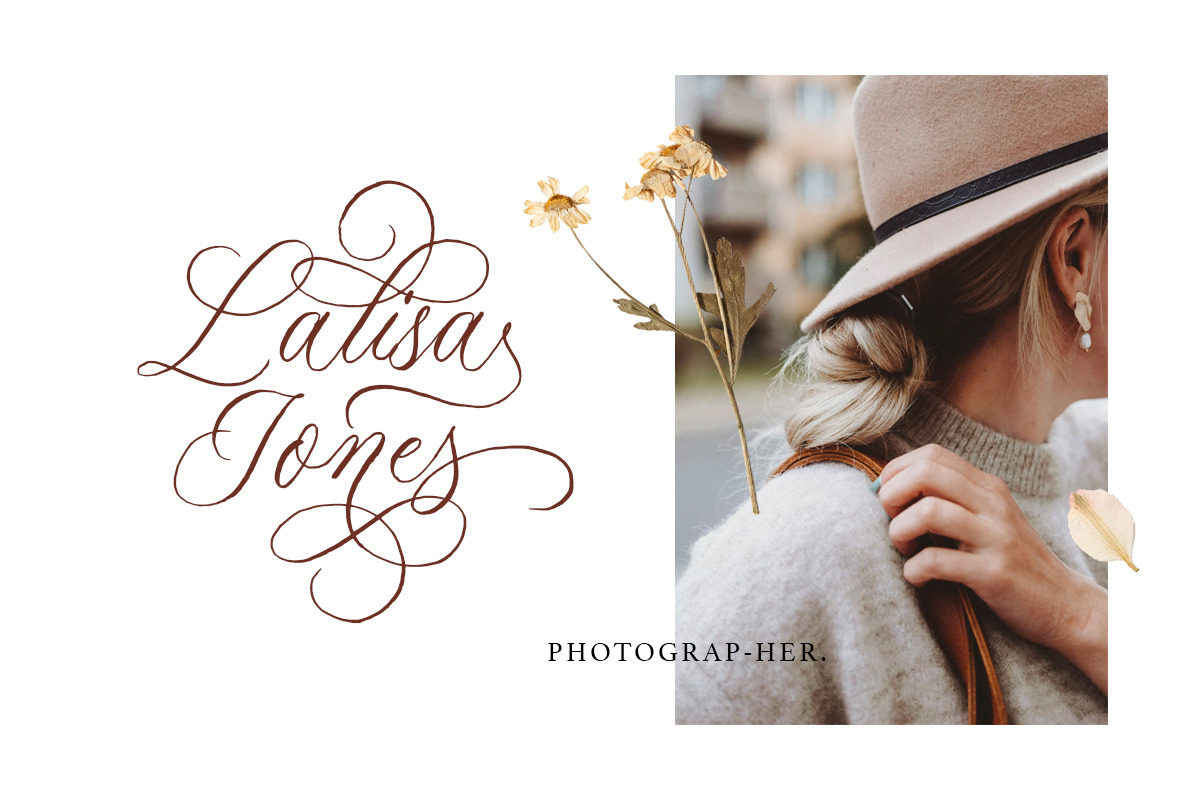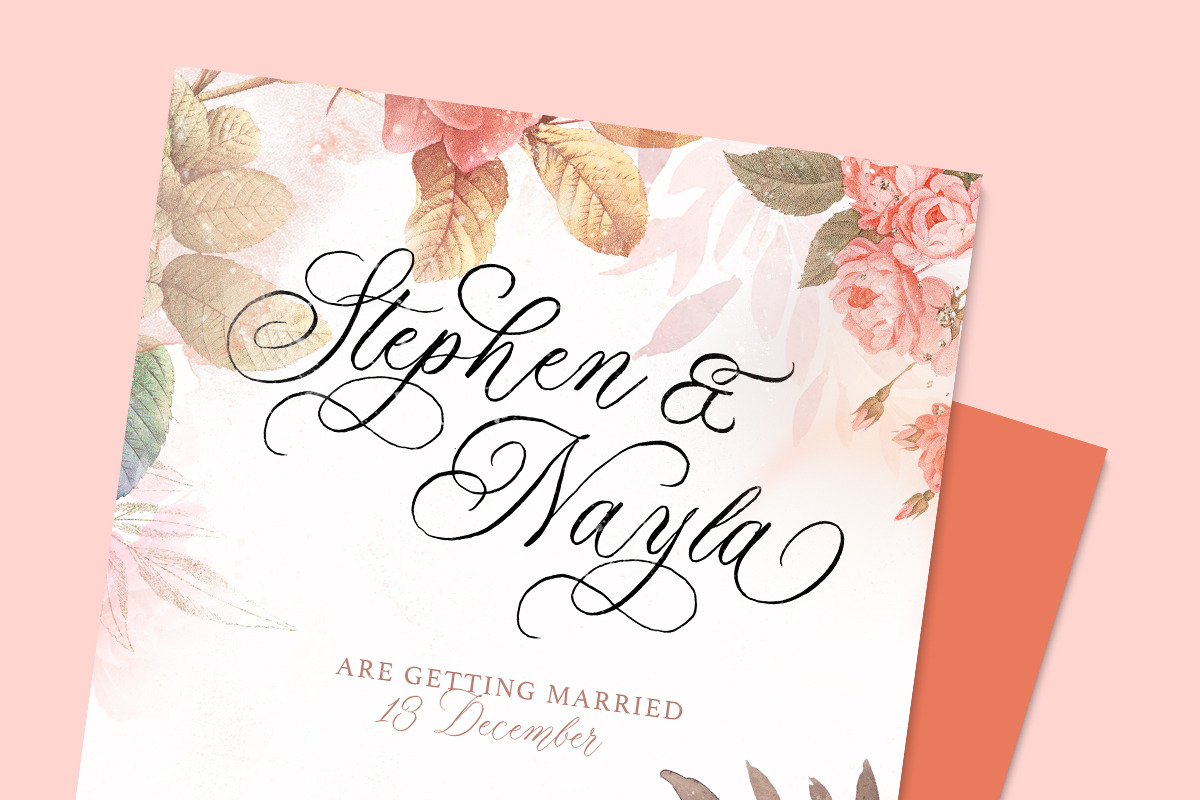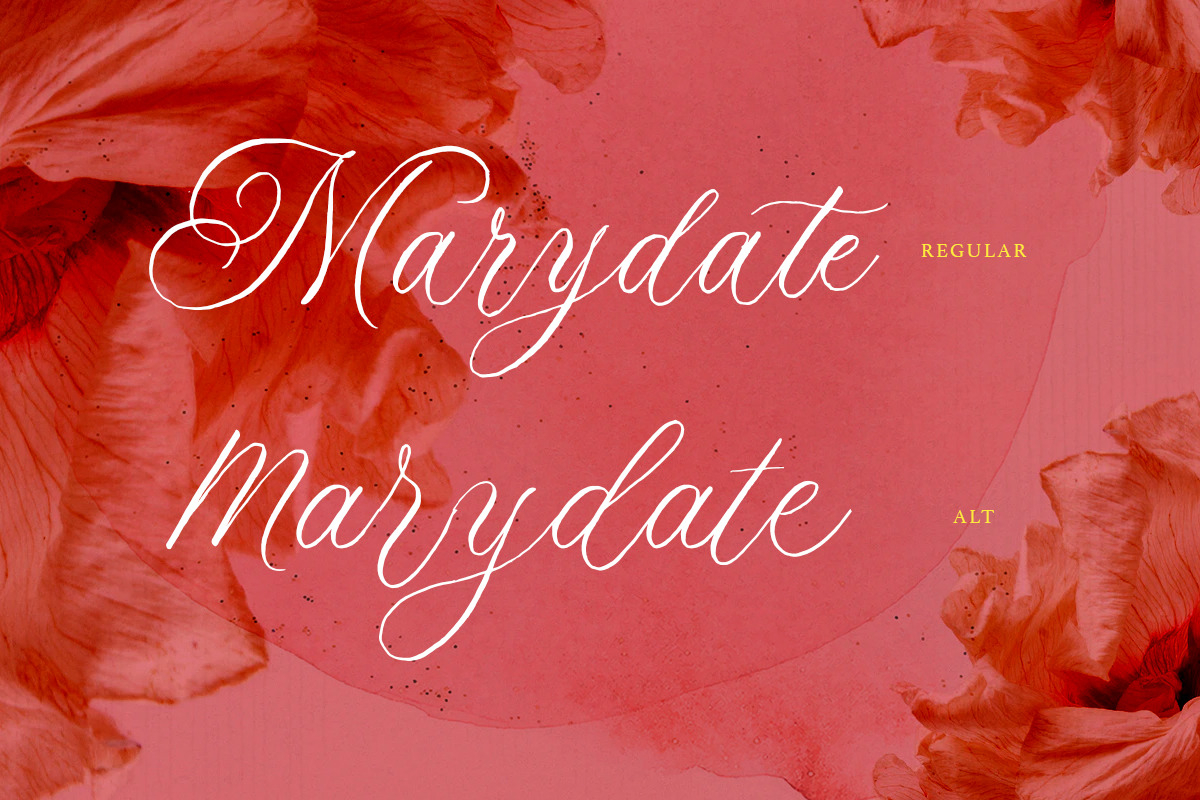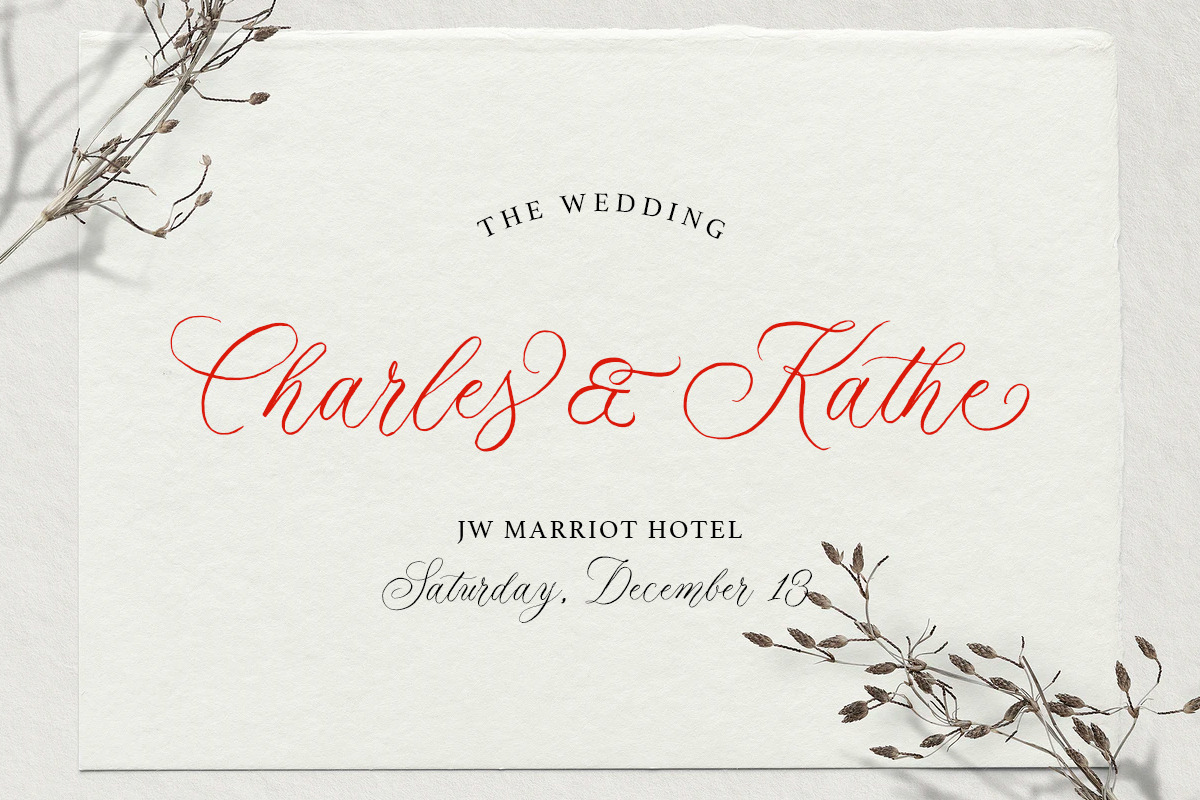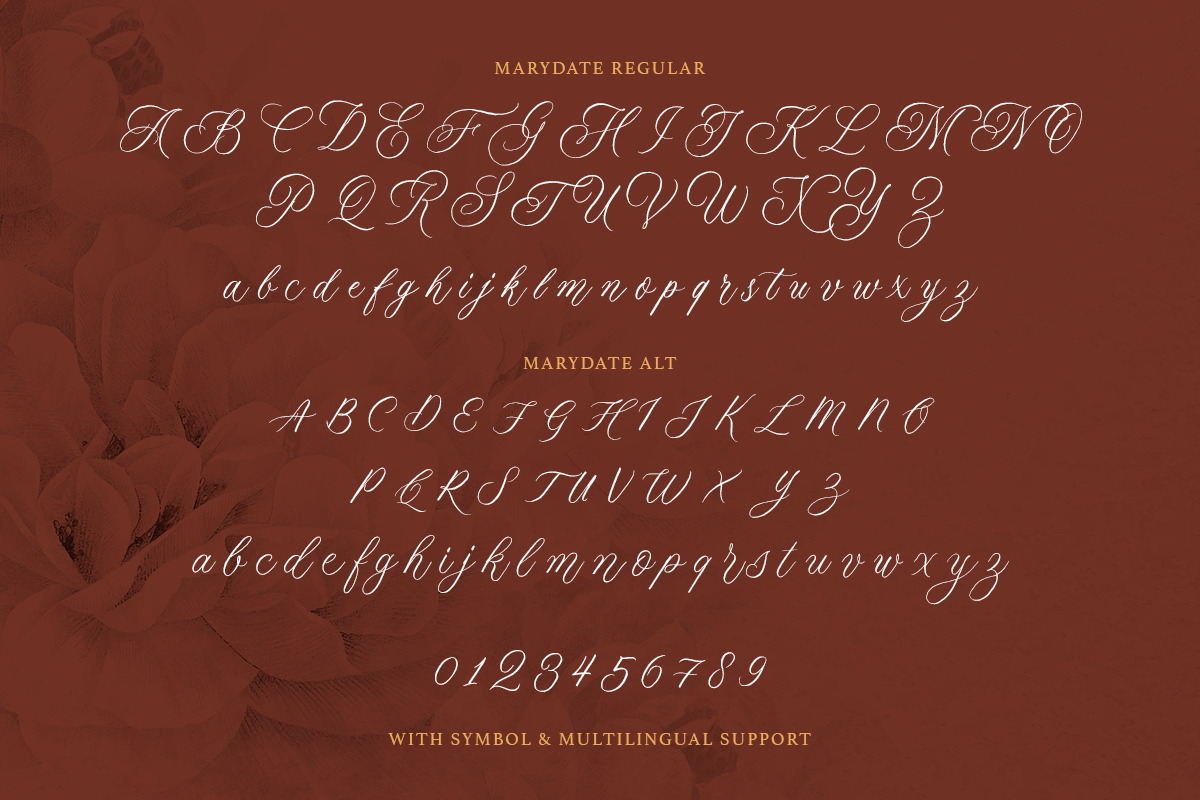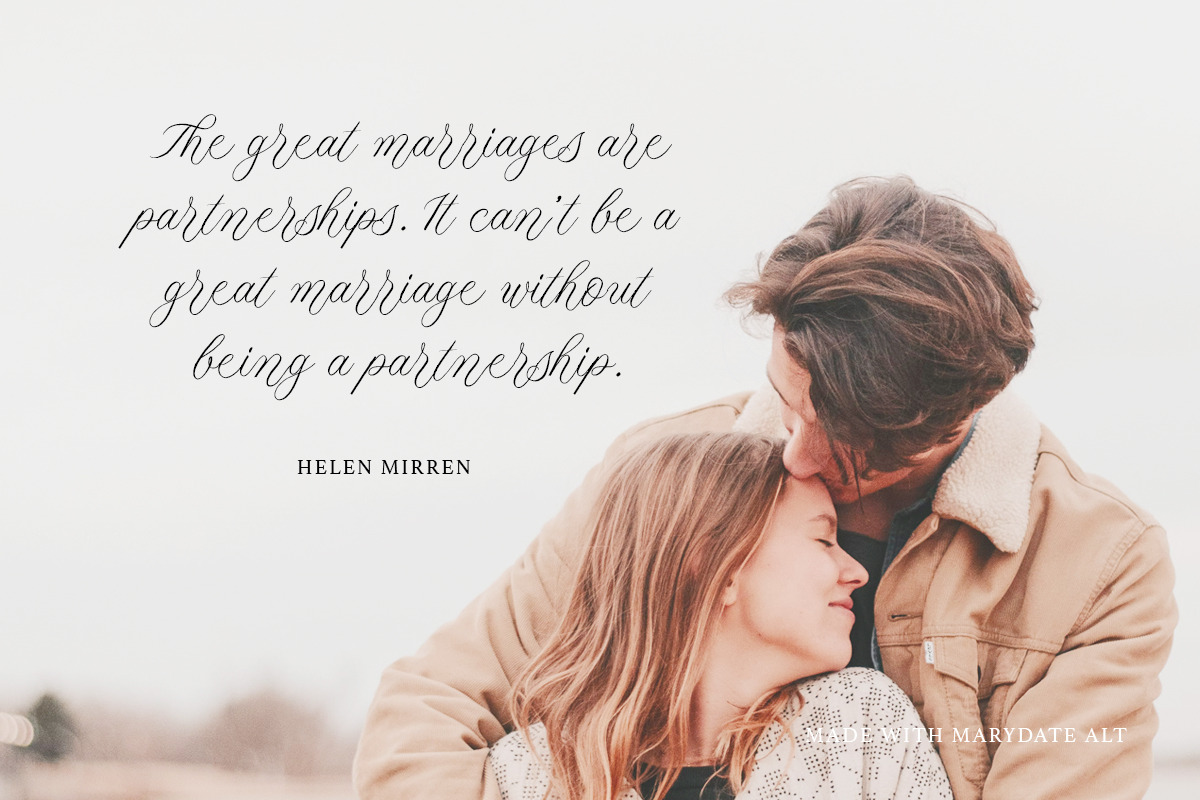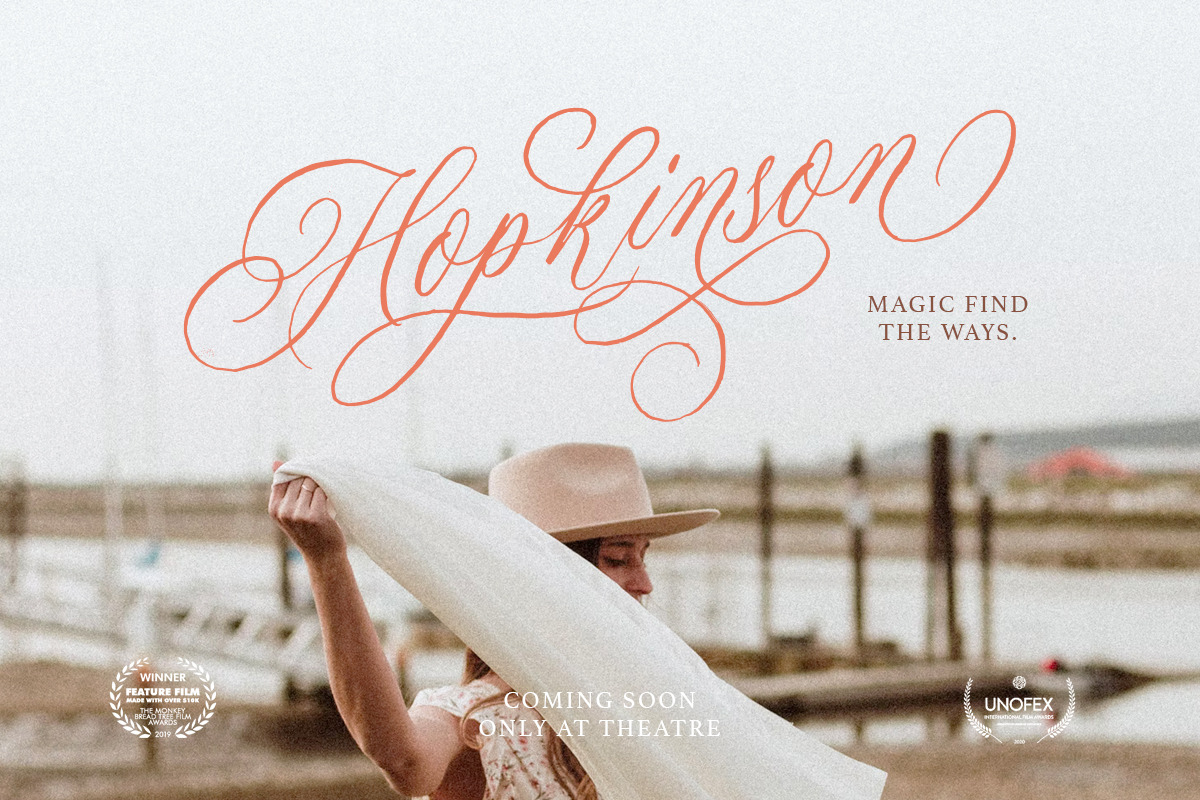
The Marydate - Organic Calligraphy
The Marydate is a Beautiful and classy script based on manual calligraphy ink on a paper. This fnt has many swashes that allows you to create beautiful lettering instantly. it has many stylistic set alternates that you can choose from. The character of this typeface is bouncy with natural stroke which is make it looks naturally handwritten.
This font perfectly made to be applied especially in logo, and the other various formal forms such as invitations, labels, logos, magazines, books, greeting / wedding cards, packaging, fashion, make up, stationery, novels, labels or any type of advertising purpose.
- alternates
- swashes